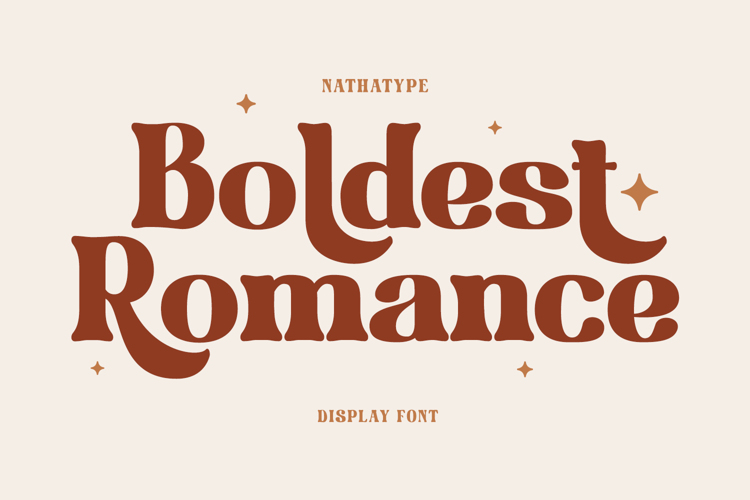
Boldest Romance Font
If you are looking for an aesthetically fun, legible font, Boldest Romance is the perfect choice. It is a thickly designed weight display font to be legible and beautiful at the same time. This is perfect to apply for serious, formal contents as it gives a strong impression.
Features:
• Alternates
• Ligatures
• Multilingual Supports
• Numerals and Punctuations